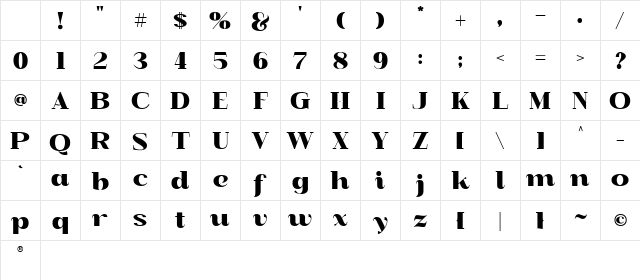
Kingkey Neue Demo Black is a composed and adaptable typeface that performs quietly and consistently across a wide range of design contexts.
Pro Tip: Use Kingkey Neue Demo Black in both headline and body roles to test its range before committing to a single application.